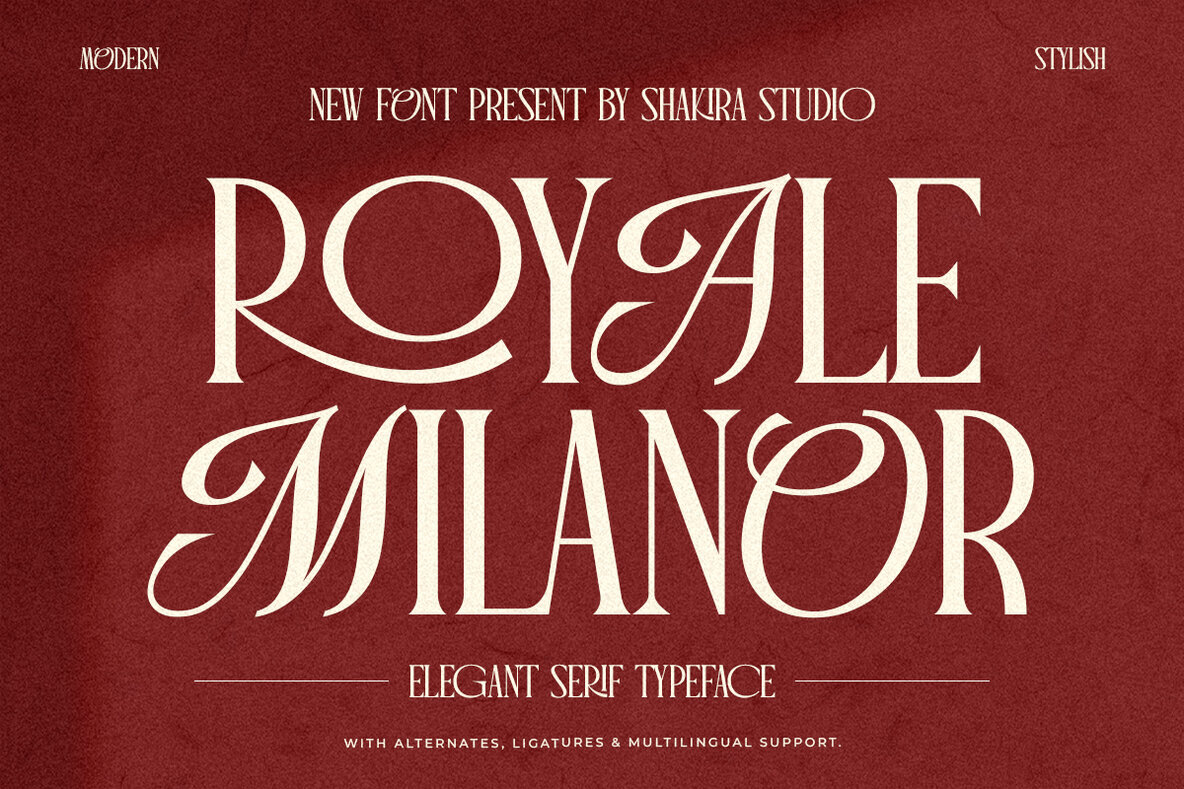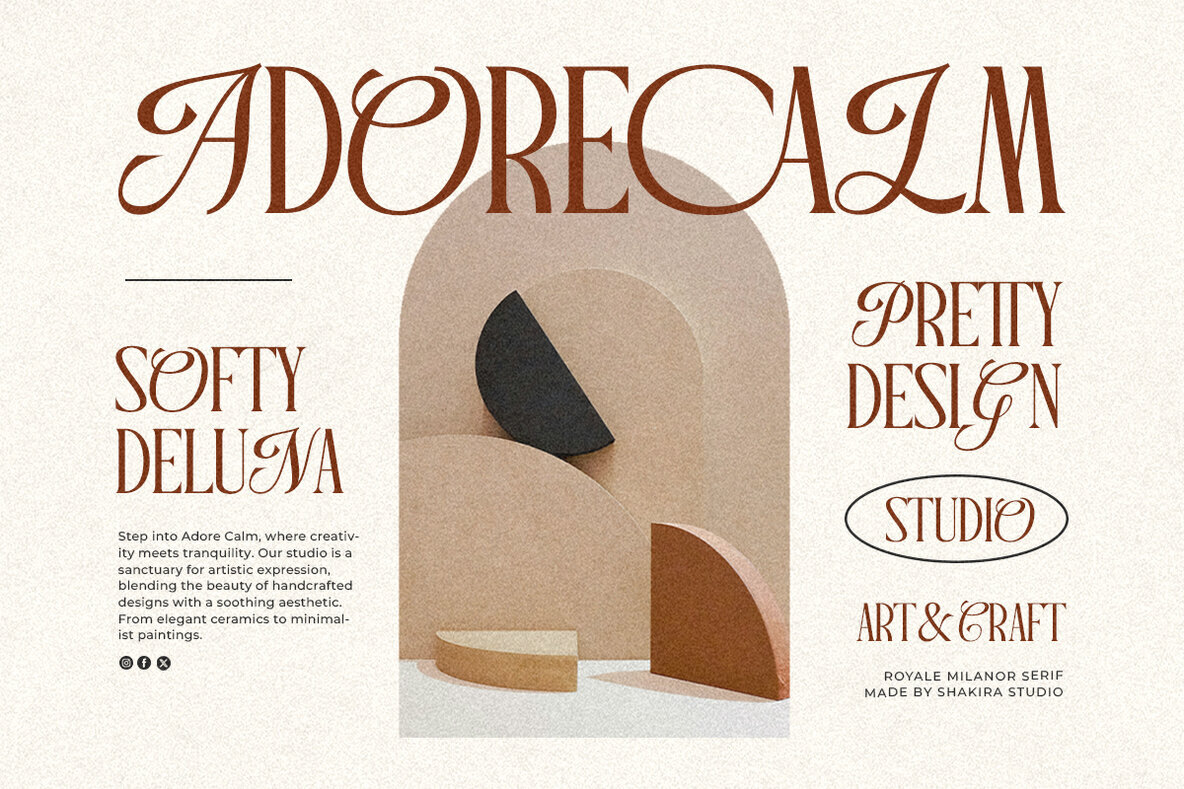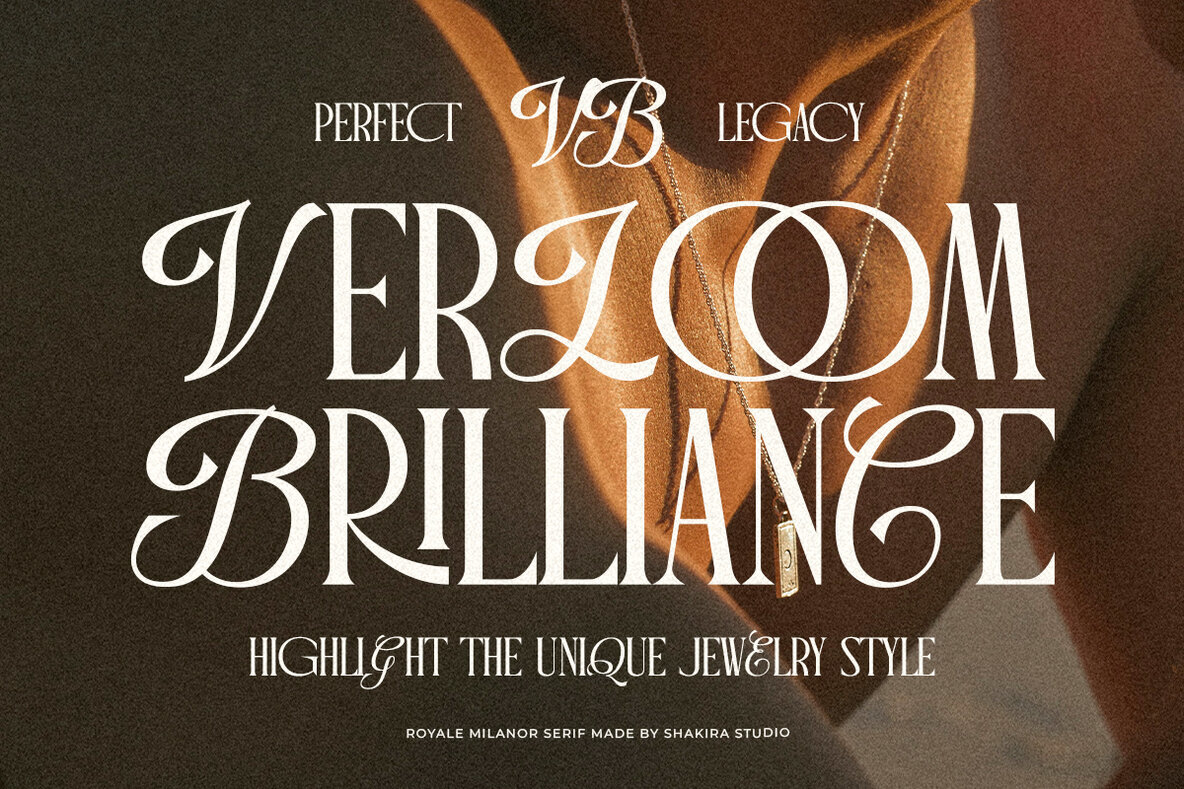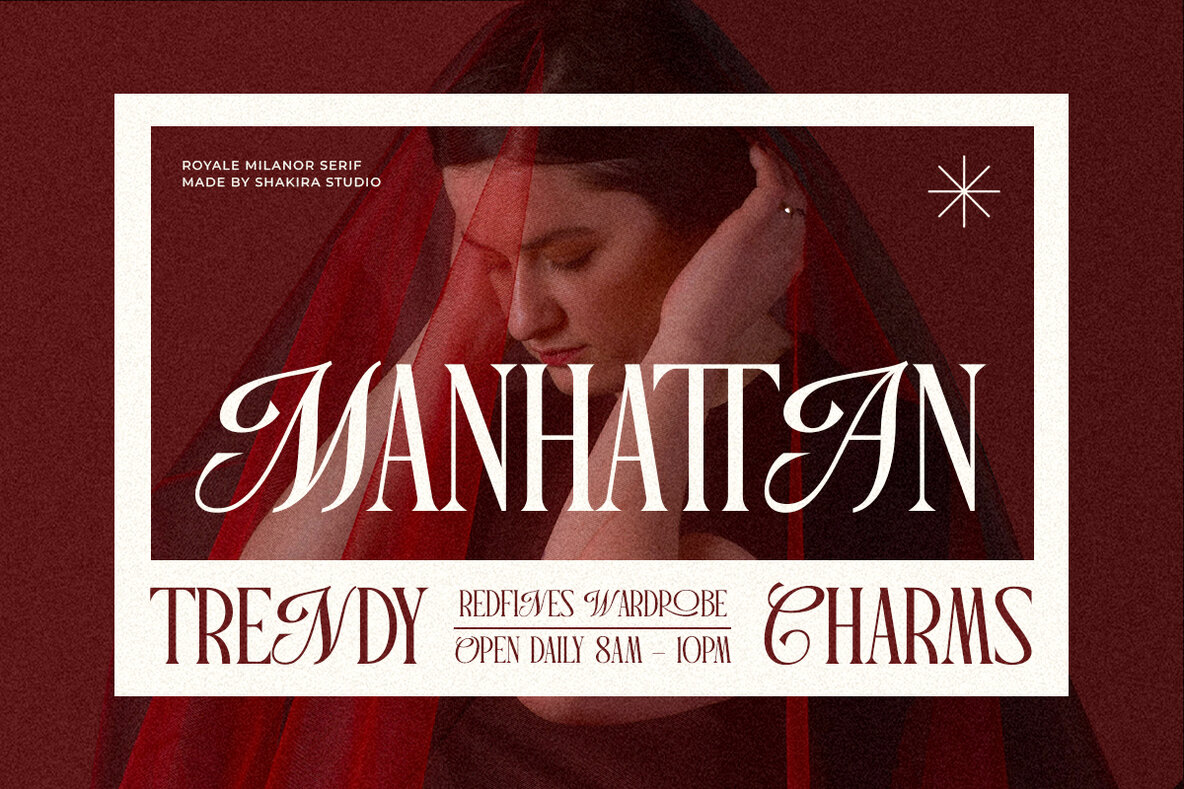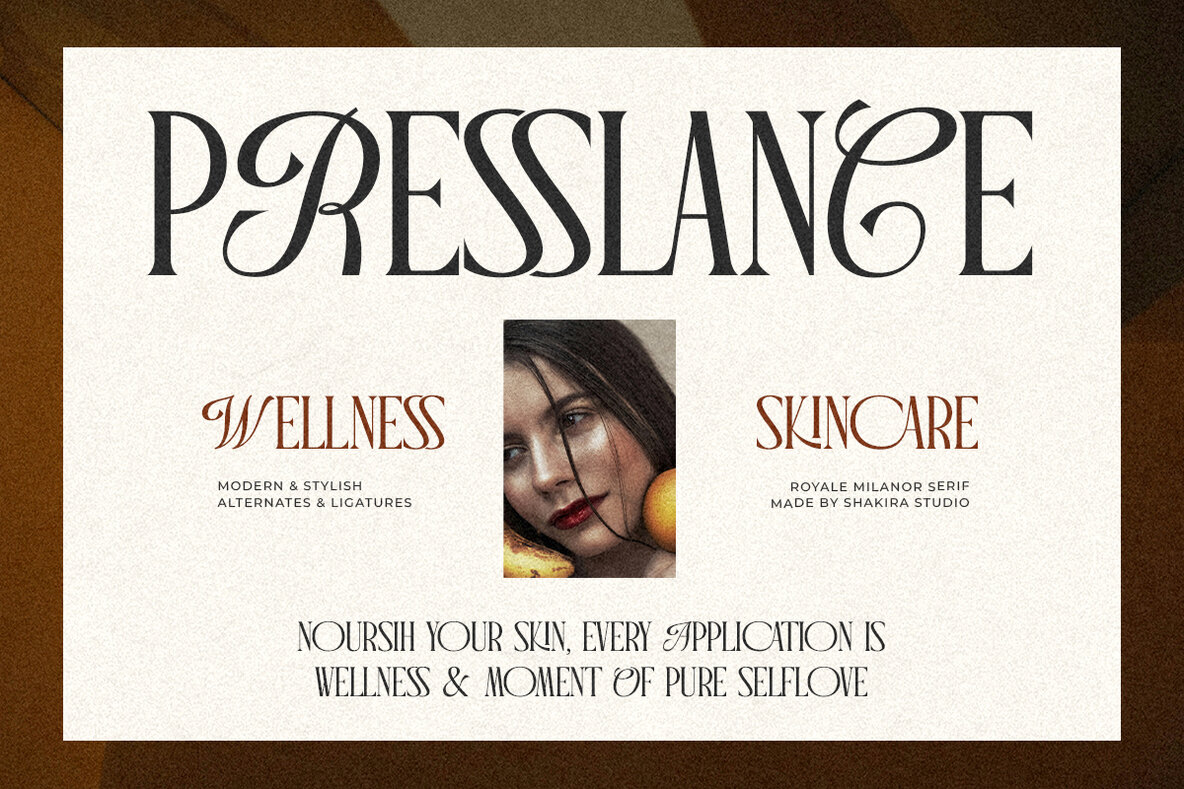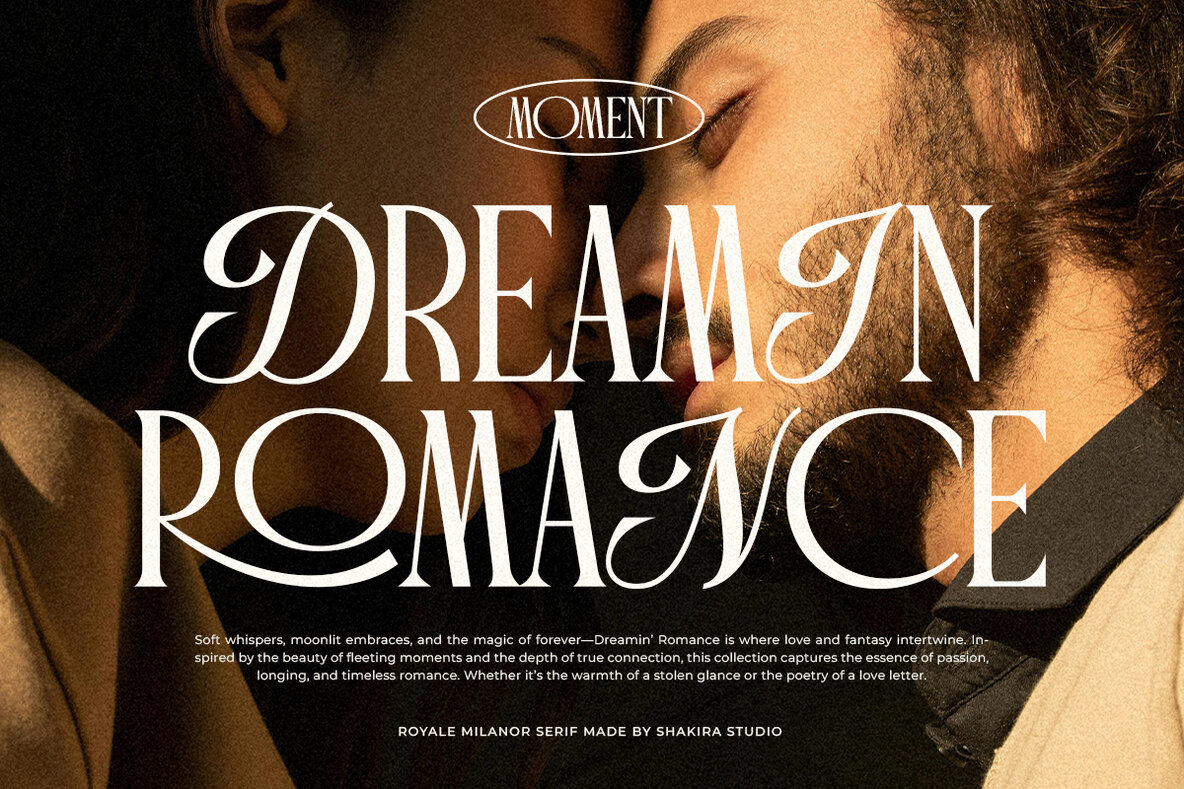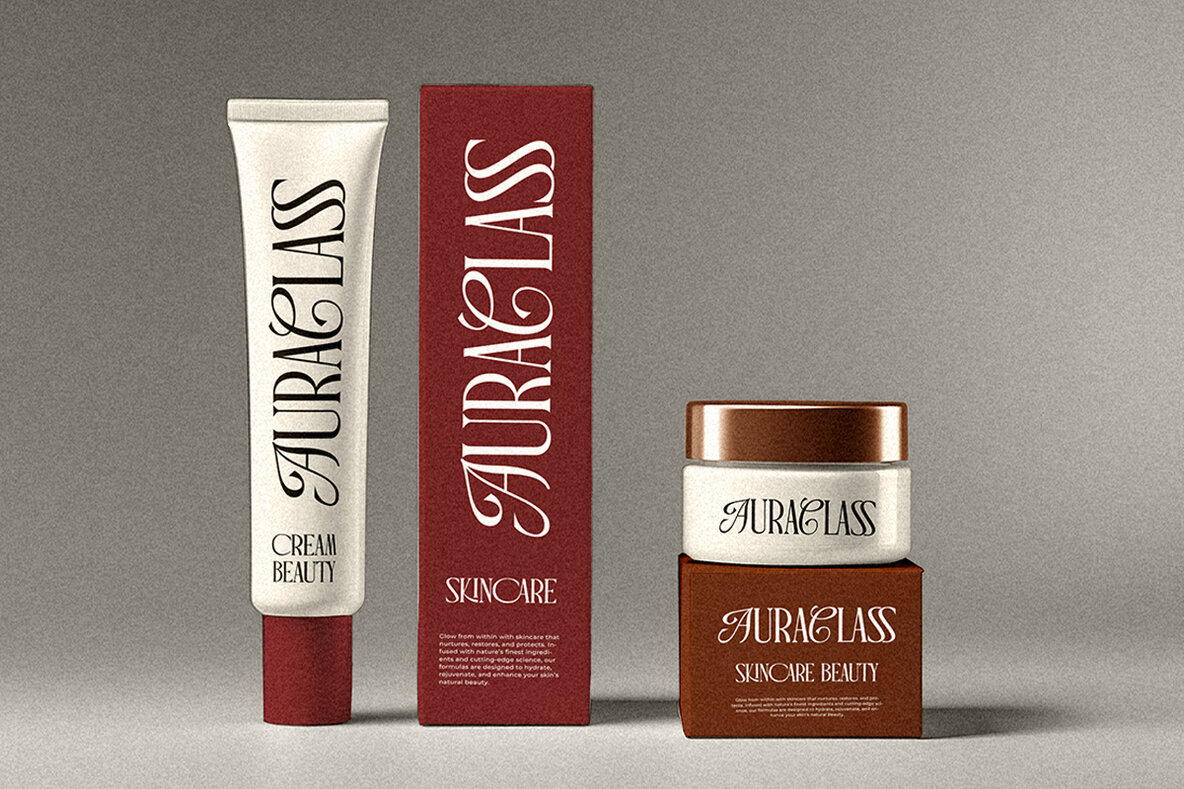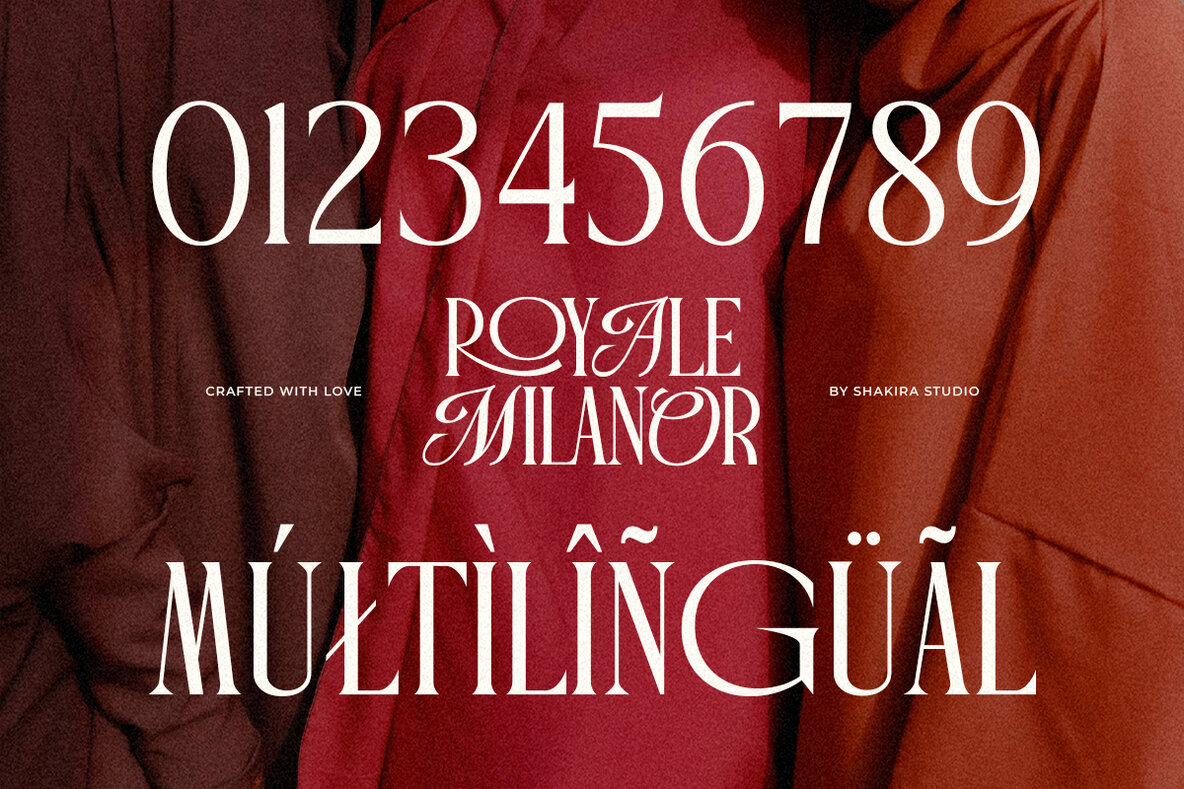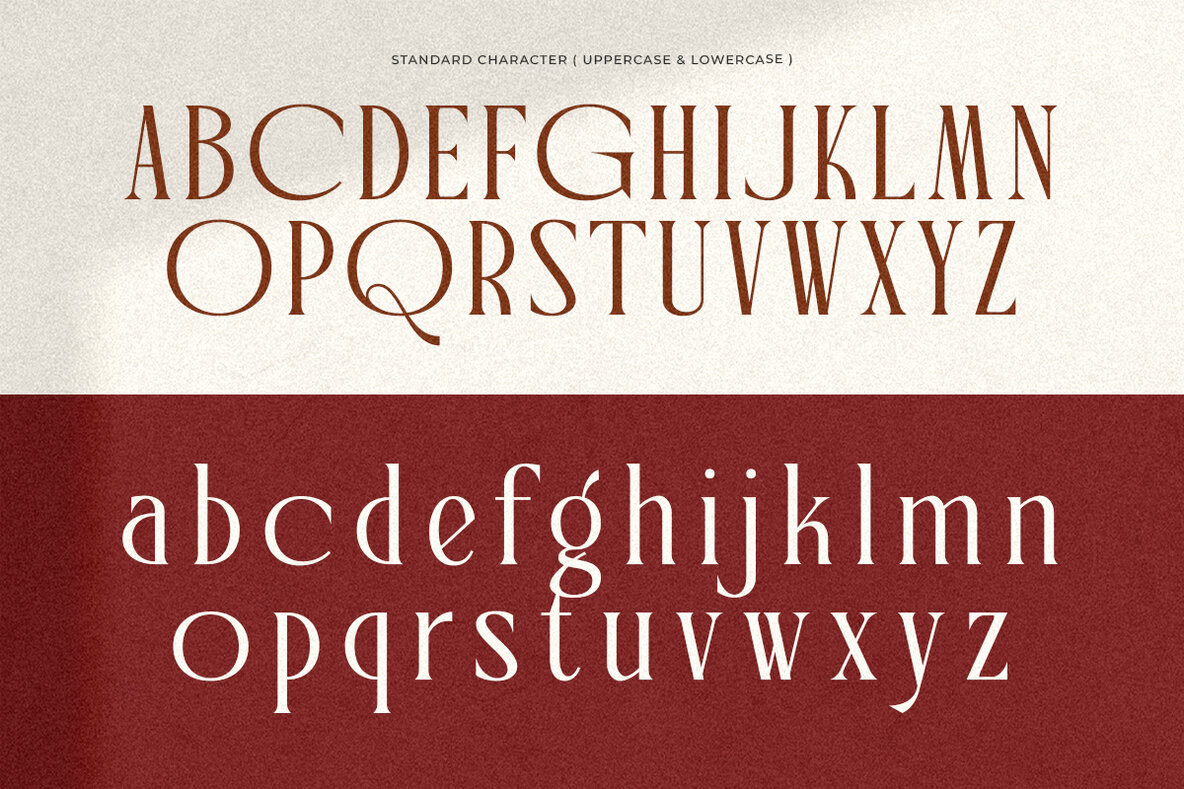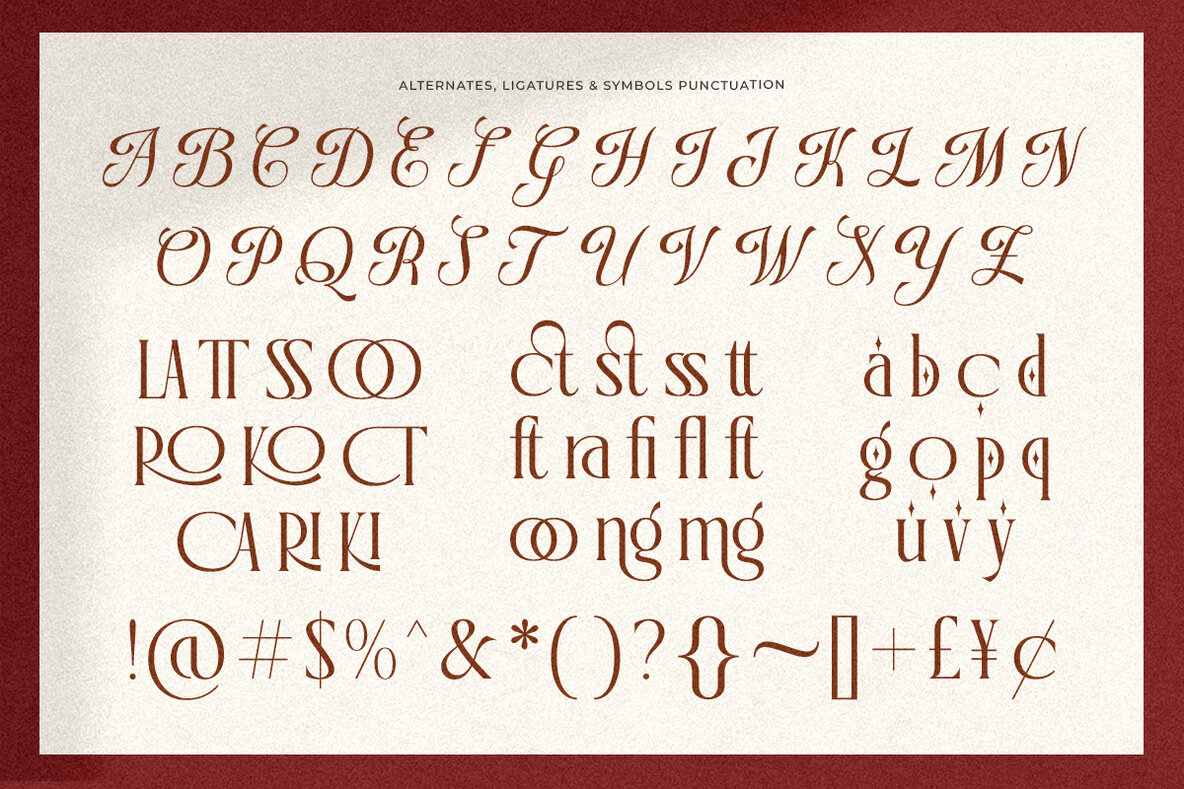
Royale Milanor Font
Royale Milanor Regular
Royale Milanor is a sophisticated serif typeface epitomizing elegance and luxury. This meticulously designed font harmonizes a timeless aesthetic with modern flair, ideal for high-end branding, fashion editorials, magazine layouts, and premium print projects. Its refined design elements make it suitable for an array of applications, from logos and wedding invitations to advertising campaigns, enhancing projects with its unique elegance and exquisite character.
Featuring versatile alternates and ligatures, Royale Milanor offers seamless customization, enabling designers to create stylish and distinct typography. It is fully functional across various design software, including Adobe Illustrator, Photoshop, InDesign, and even Microsoft Word. The font includes PUA encoded characters, allowing full access without additional software. Additionally, Royale Milanor supports a comprehensive range of languages, including Afrikaans, Albanian, Catalan, Croatian, Czech, and many more, making it a versatile choice for global applications.